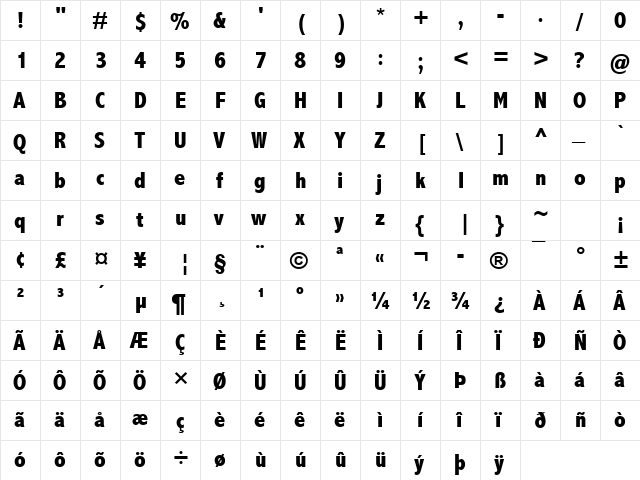
Abadi MT Condensed Extra Bold Regular Font Preview
Design Context for Abadi MT Condensed Extra Bold Typeface
Abadi MT Condensed Extra Bold takes a measured approach to typography — its balanced proportions and neutral character make it a reliable workhorse for both digital and print work. Its bold stroke weight gives it real presence on the page. The condensed width makes it efficient for tight spaces without sacrificing legibility.